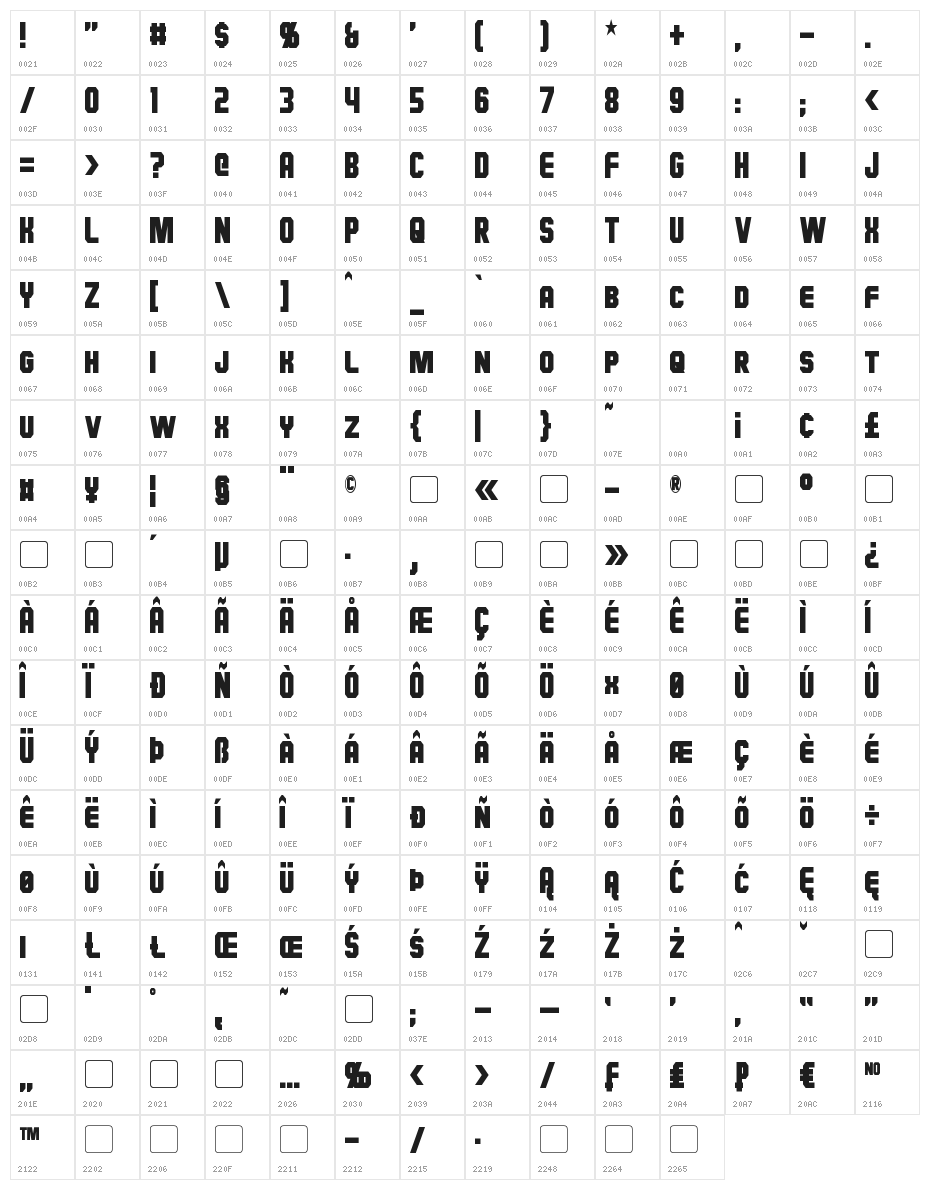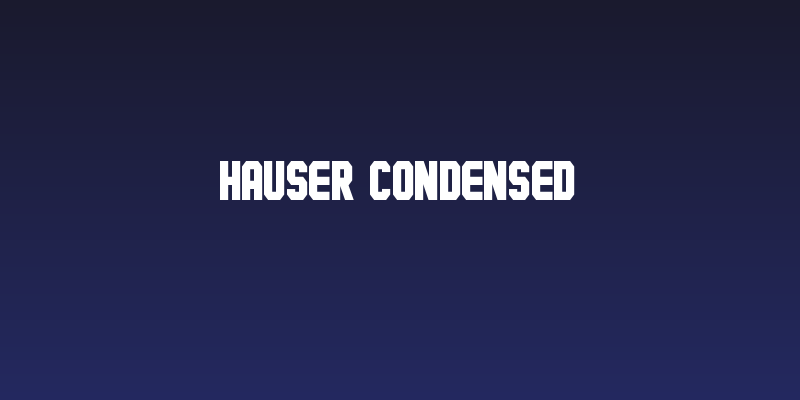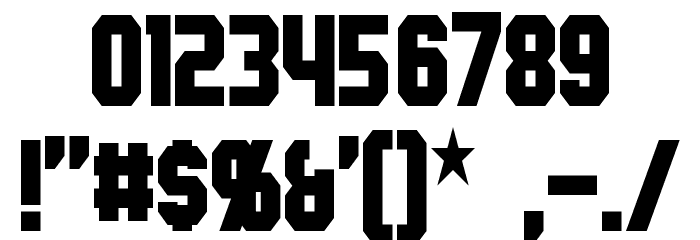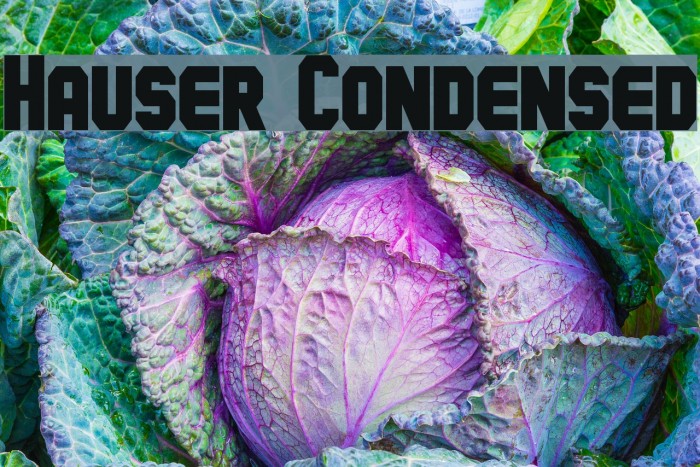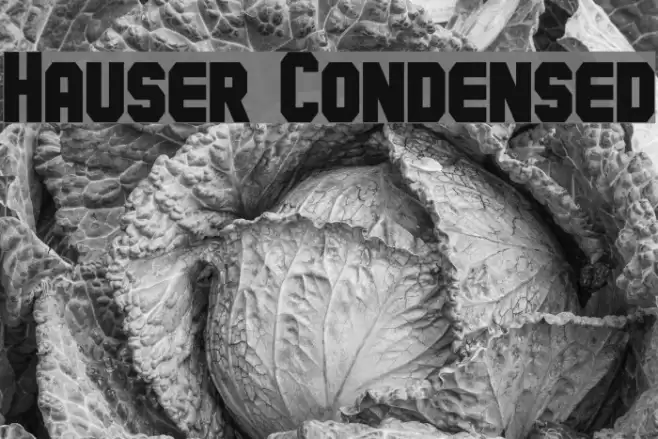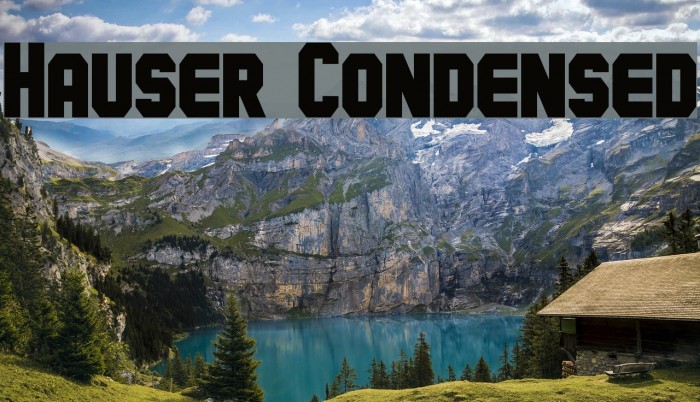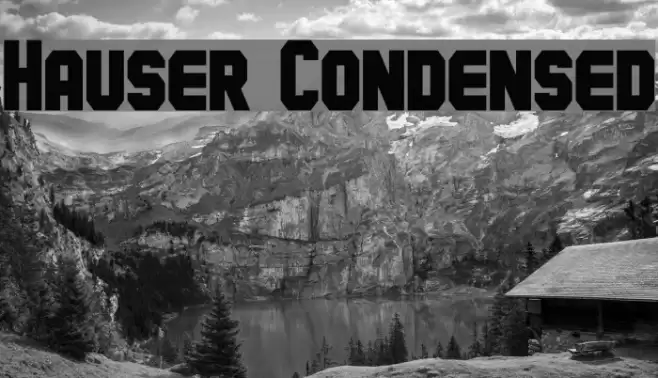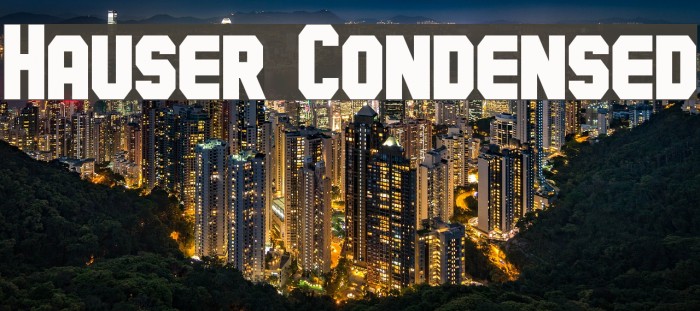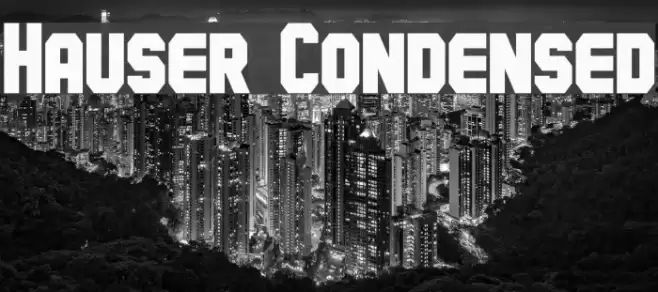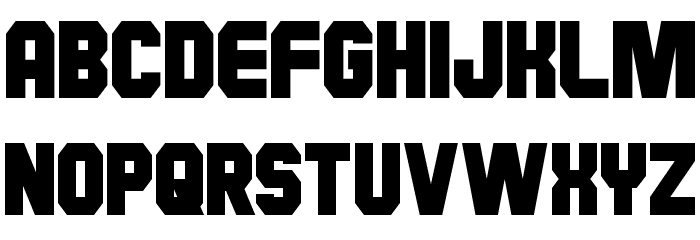
Hauser Condensed Font
Hauser Condensed Description
This font features a bold, geometric design with a strong, impactful presence. The characters are constructed with sharp angles and straight lines, giving it a modern and industrial feel. The uppercase letters are particularly striking, with a uniform height and width that create a cohesive look. The numbers and special characters maintain the same boldness and geometric style, ensuring consistency across all text elements. This font's condensed nature allows for efficient use of space, making it ideal for headlines and titles where impact is essential.